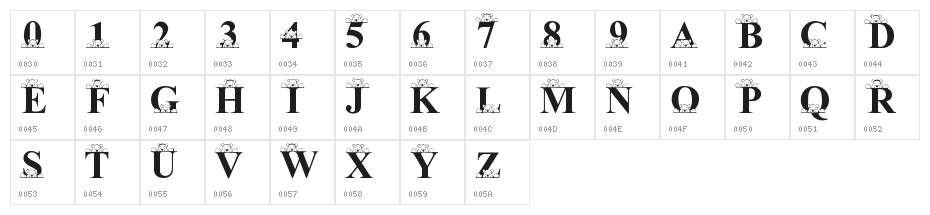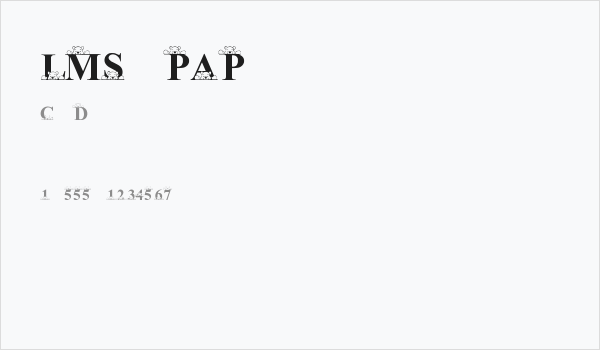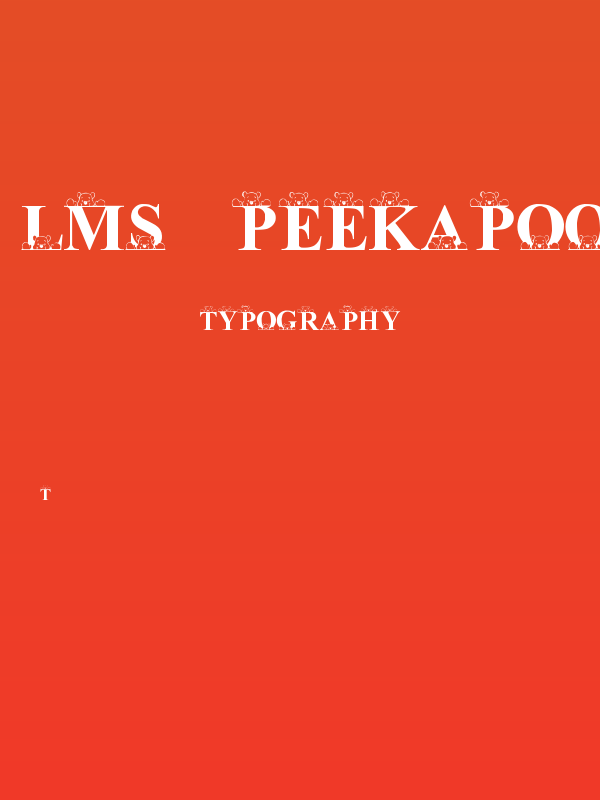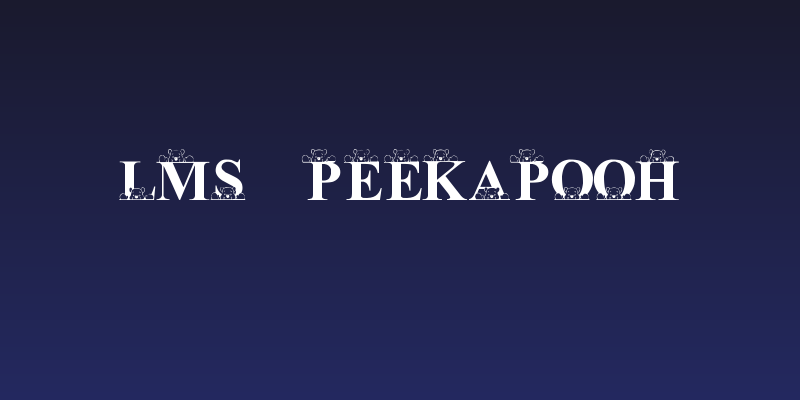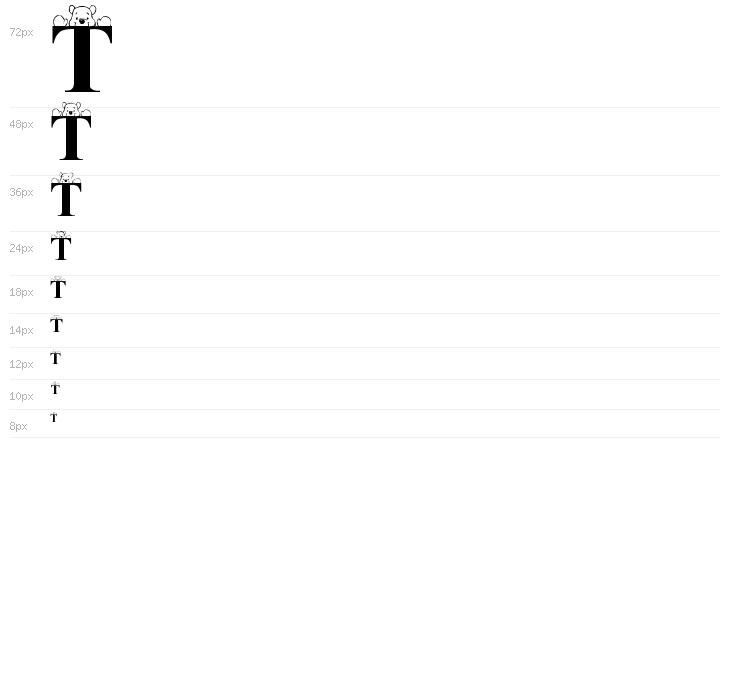
LMS Peek-A-Pooh Font
LMS Peek-A-Pooh Description
This playful and whimsical font features a unique design where each character is accompanied by a small, cartoon-like bear peeking over the top. The letters are bold and serifed, providing a classic feel, while the addition of the bear adds a touch of fun and creativity. The font maintains a consistent style across uppercase, lowercase, and numeric characters, ensuring a cohesive look. The bears are intricately detailed, adding a layer of charm and personality to the font. This design is perfect for projects that aim to convey a sense of joy and playfulness.
| Use Case | Headlines, Logos, Decorative Text |
| Proposed Projects | Ideal for children's books, playful branding, greeting cards, and whimsical invitations. |